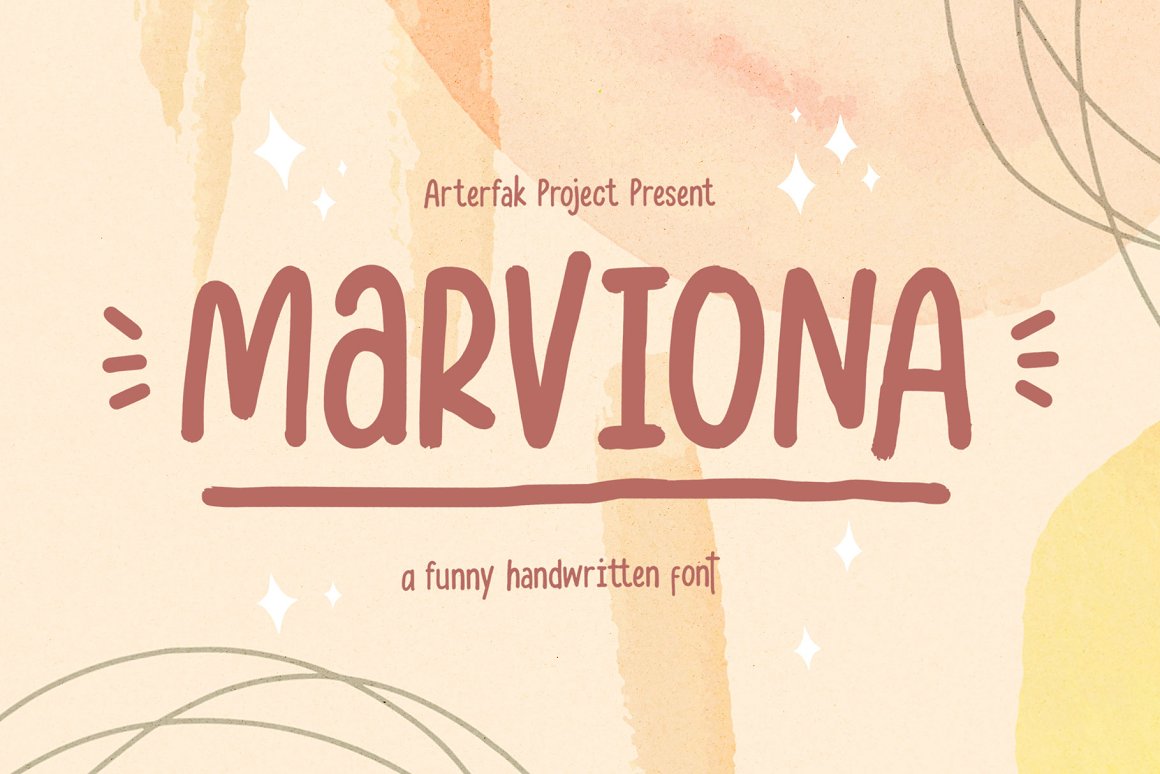
Marviona – Sweet Handwritten Font
About Marviona – Sweet Handwritten
Brighten your day with Marviona, inspired by cute handwriting and casual minimalist design. Crafted with monoline brush with the natural flow of the letterforms. This font has a bit bouncy layout that makes it looks more playfully!